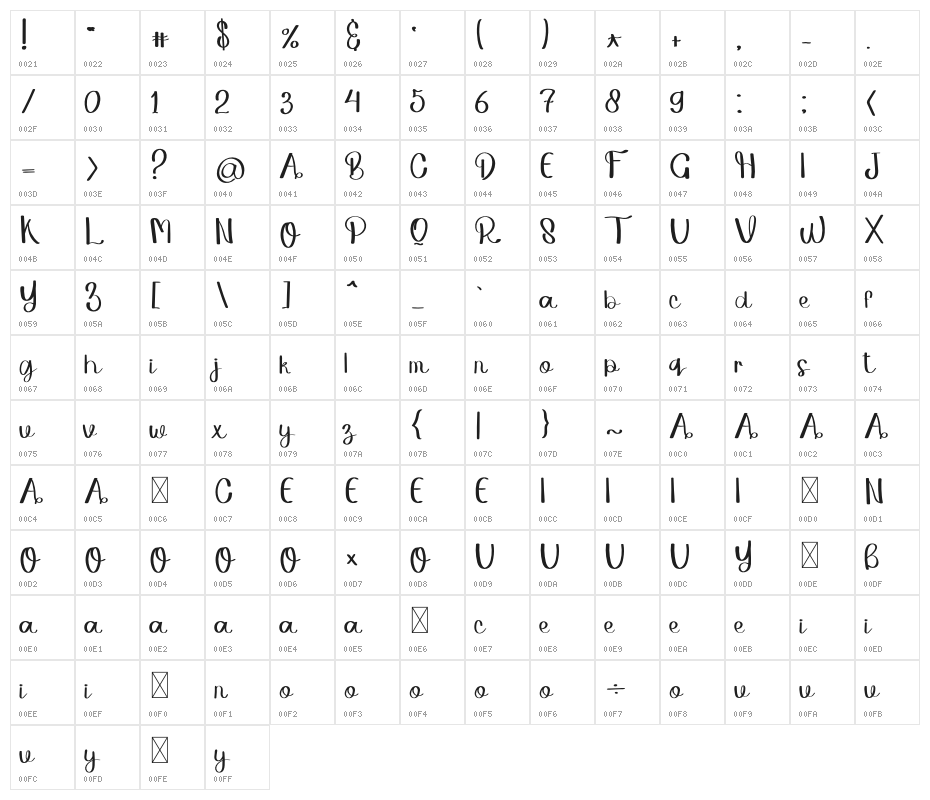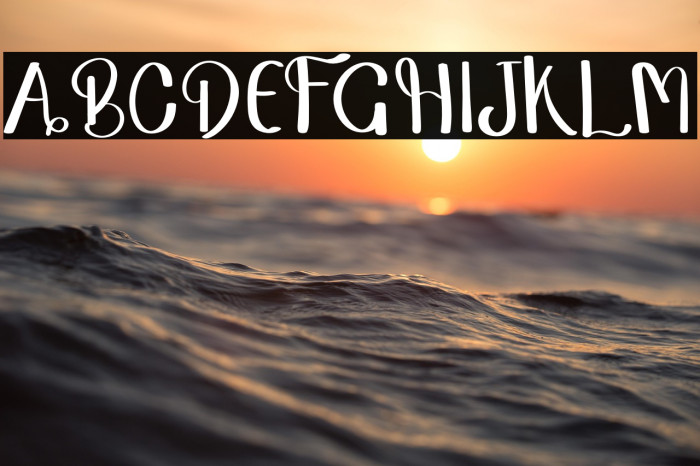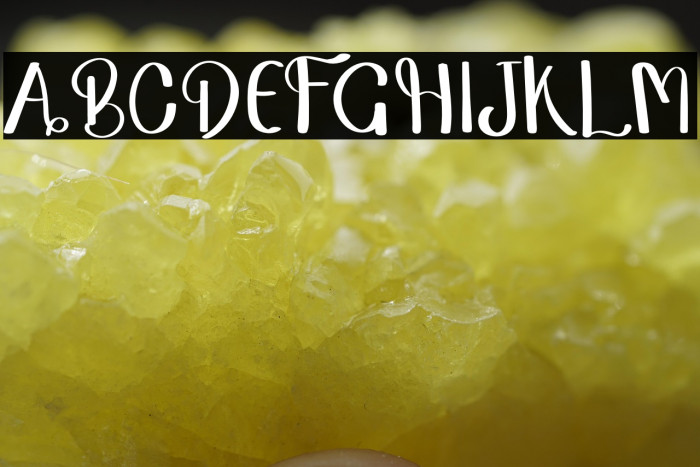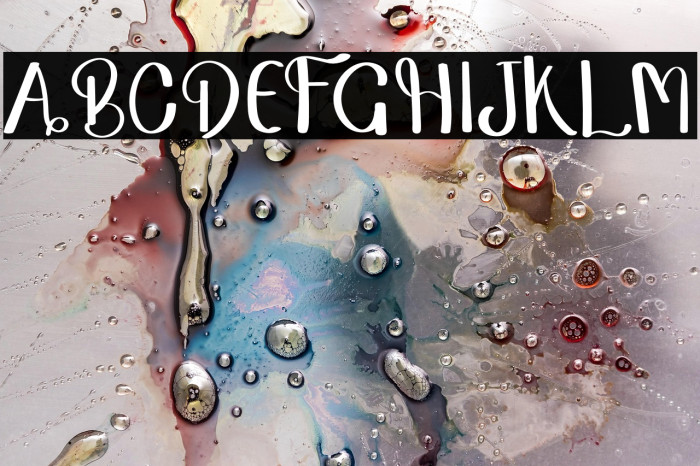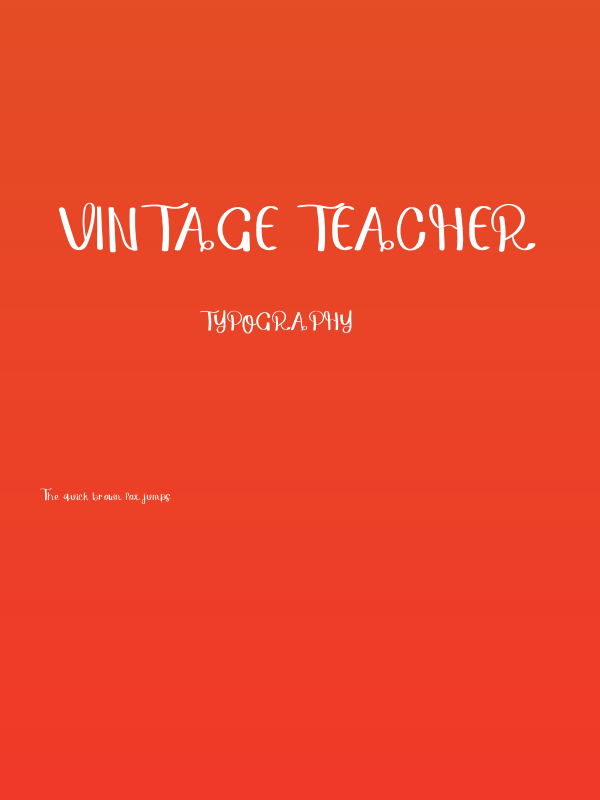
Vintage Teacher Font
Vintage Teacher Description
This font features a playful and whimsical style, characterized by its flowing, cursive-like letters that maintain a sense of elegance and readability. The uppercase letters are bold and slightly exaggerated, with unique flourishes that add a touch of personality. The lowercase letters are more subdued but still retain the font's distinctive curves and loops. Numbers and special characters are consistent with the overall style, offering a cohesive look across all characters. The font's design is reminiscent of hand-lettered signage, making it ideal for projects that require a personal, handcrafted feel.
| Proposed Projects | Perfect for invitations, greeting cards, branding, and any project that benefits from a personal, handcrafted touch. |